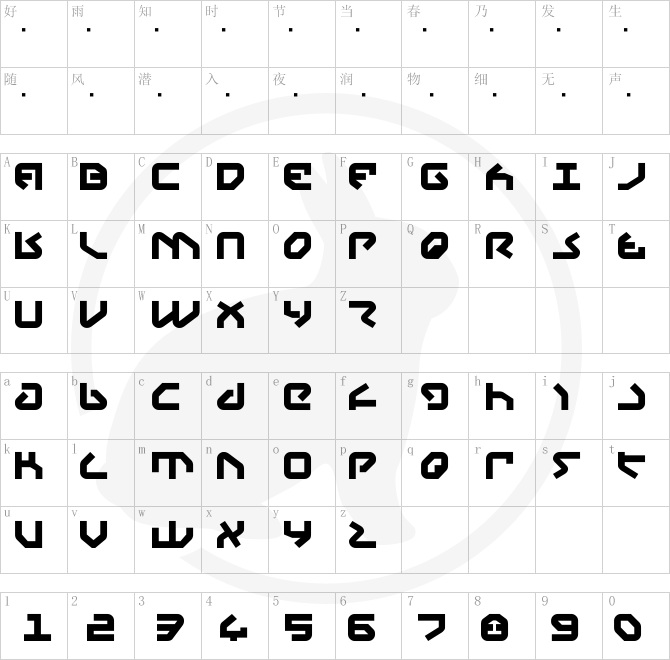
- Font Name:Yahren
Yahren.ttf is a very beautiful artistic font, Yahren.ttf is widely used in the design and printing of various books and pictures,Yahren.ttf has a strong visual impact,Yahren.ttf is a commonly used font in newspapers, magazines and books, and is used in posters, e-commerce Poster design, store design, logo design, font design and other fields.Yahren.